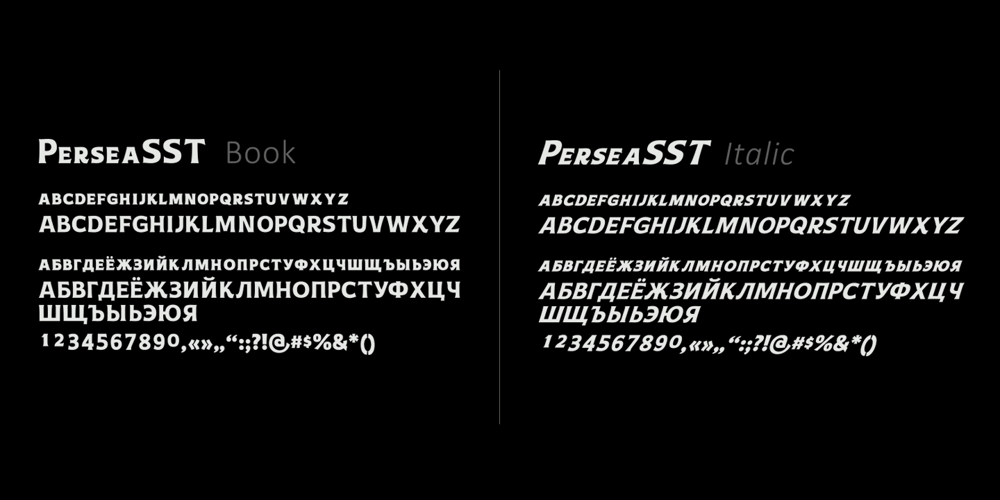
Persea SST
Persea SST font
Persea SST Font Family was designed by Sergei Titov and published by Sergei Titov. Persea SST contains 2 styles and family package options. Introducing the new Persea SST font. This font is ideal for quotes, logos, clothing, advertising, wedding invitations and packaging design and labels.